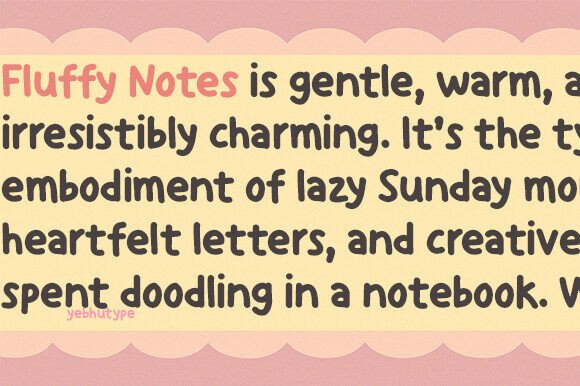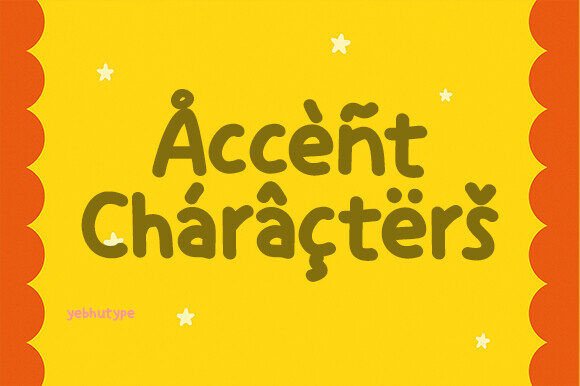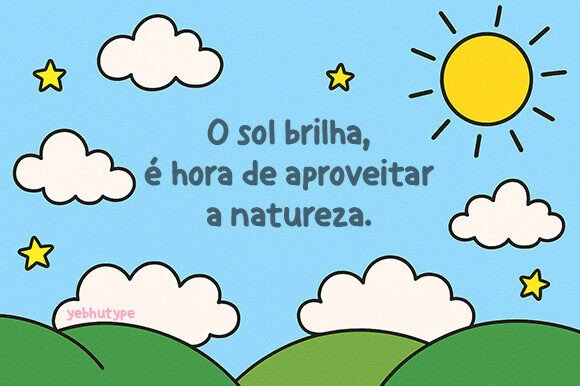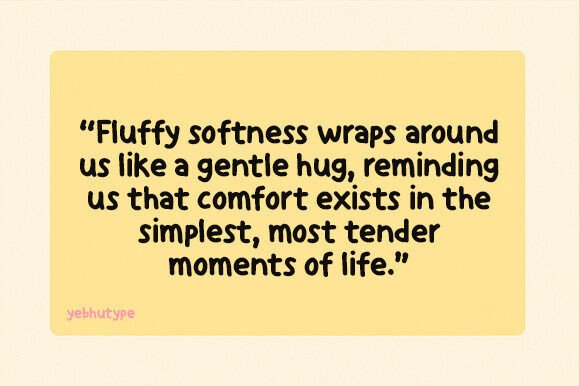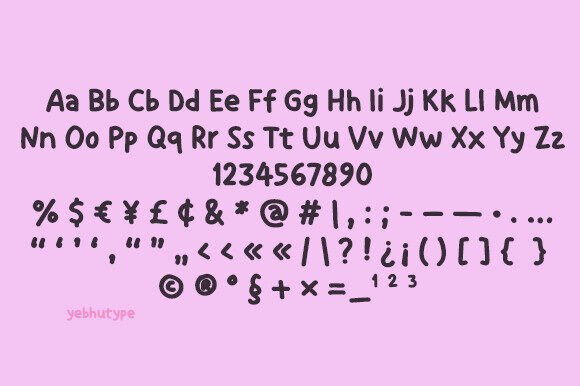
Introducing Fluffy Notes: The Delicate Handwritten Typeface for Whimsical Designs
Are you tired of using the same old fonts in your designs? Do you want to add a touch of personality and whimsy to your creations? Look no further than Fluffy Notes, a beautiful handwritten typeface that is sure to capture the hearts of designers and crafters alike. Inspired by soft strokes, cozy scribbles, and the warmth of personal expression, Fluffy Notes brings a delicate and dreamy quality to every design.
The Inspiration Behind Fluffy Notes
Fluffy Notes is more than just a font – it’s an extension of the human touch. The typeface is inspired by the gentle strokes of a pen gliding across paper, creating a sense of intimacy and warmth. The designers behind Fluffy Notes aimed to capture the essence of handwritten notes, where every scribble and scrawl tells a story. The result is a font that feels like a whispered secret, a gentle breeze on a summer day, or a cozy cup of coffee on a chilly morning.
Key Features of Fluffy Notes
So, what makes Fluffy Notes so special? Here are just a few key features that set this font apart:
- Airy Curves: Fluffy Notes features delicate, airy curves that give it a light and effortless feel. Perfect for designs that require a touch of elegance and sophistication.
- Light Texture: The font boasts a subtle texture that adds depth and visual interest to any design. The texture is gentle enough to be calming, yet distinctive enough to make a statement.
- Graceful Rhythm: Fluffy Notes has a natural, rhythmic flow that makes it a joy to read and write with. The font’s gentle cadence is sure to captivate your audience and draw them in.
Perfect for Whimsical Designs
Fluffy Notes is the perfect font for designers and crafters who want to add a touch of whimsy to their creations. Whether you’re designing:
- Stationery: Add a personal touch to your notebooks, journals, and letters with Fluffy Notes.
- Branding: Give your brand a delicate, dreamy quality with Fluffy Notes – perfect for businesses that want to stand out from the crowd.
- Web Design: Use Fluffy Notes to create beautiful, eye-catching headings and titles that will draw in your website visitors.
- Crafting: Add a touch of personality to your crafting projects, such as card making, scrapbooking, and more.
Why Choose Fluffy Notes?
With so many fonts to choose from, why should you choose Fluffy Notes? Here are just a few reasons:
- Unique: Fluffy Notes is a one-of-a-kind font that will set your designs apart from the crowd.
- Versatile: The font is suitable for a wide range of design applications, from stationery to branding and web design.
- Easy to Read: Fluffy Notes is designed to be easy to read, making it perfect for body text and headings.
Get Ready to Fall in Love with Fluffy Notes